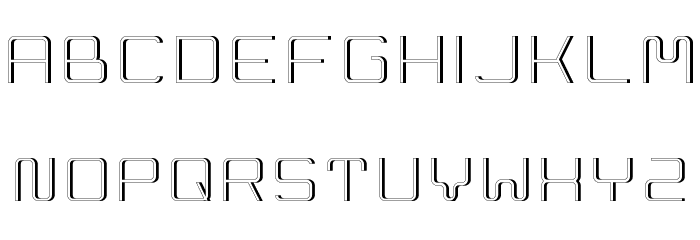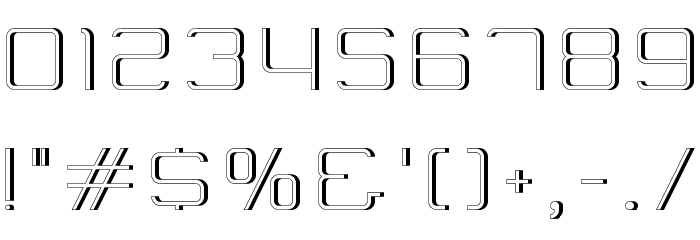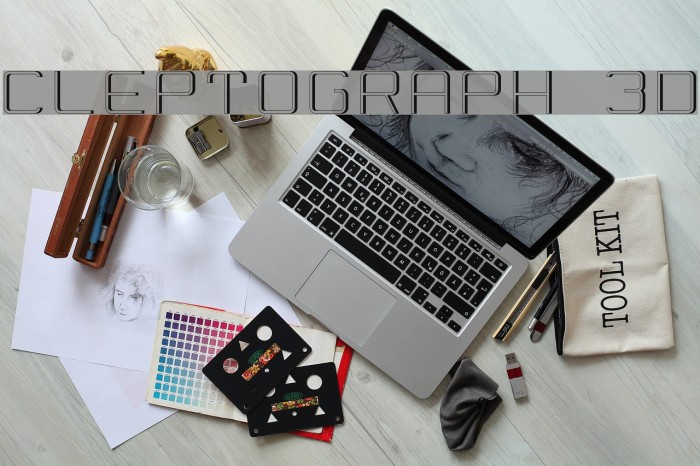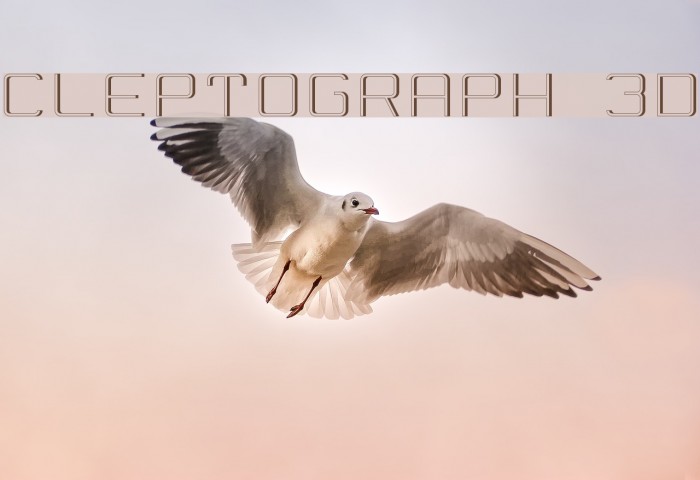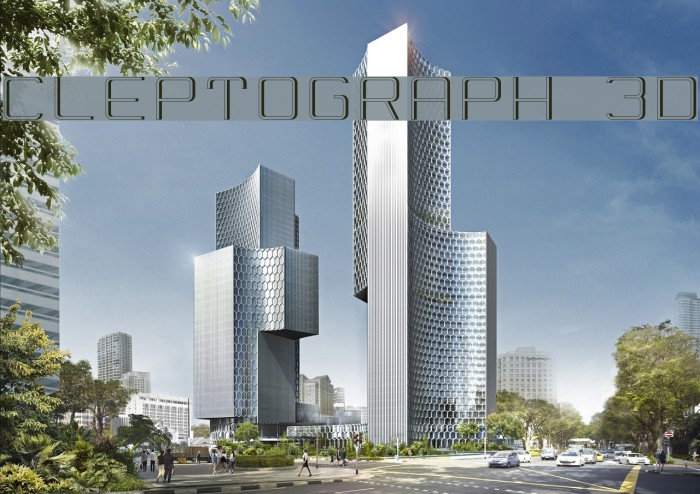
Cleptograph 3D Font
This font features a unique 3D effect with a hollow, geometric design that gives it a futuristic and modern appearance. The characters are constructed with clean, straight lines and sharp angles, creating a sense of depth and dimension. The uppercase and lowercase letters maintain a consistent style, with uniform stroke widths that enhance readability. The numerals and special characters are designed to match the overall aesthetic, making them suitable for various design applications. This font's distinctive style makes it ideal for projects that require a contemporary and innovative look.
A modern, 3D geometric font with a hollow design and consistent stroke widths.
- Proposed Projects: Ideal for tech-themed designs, futuristic branding, digital art, and innovative advertising campaigns.